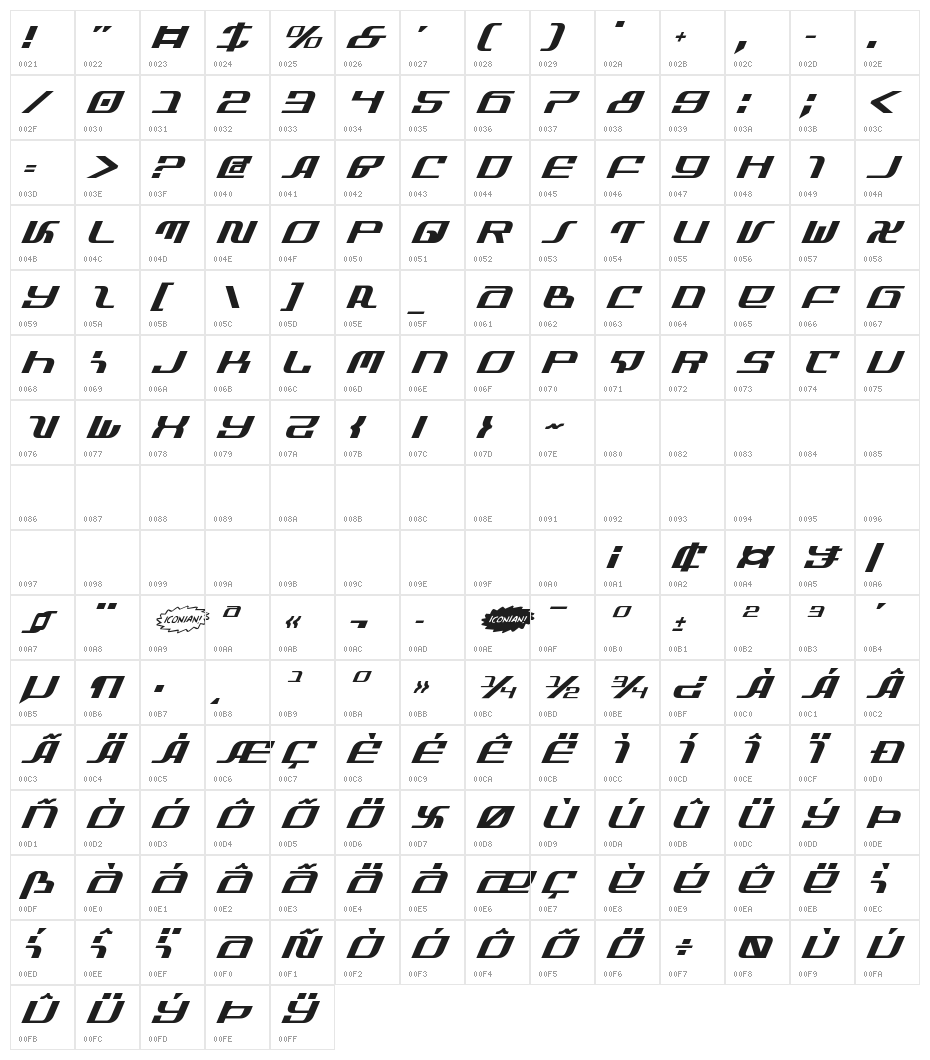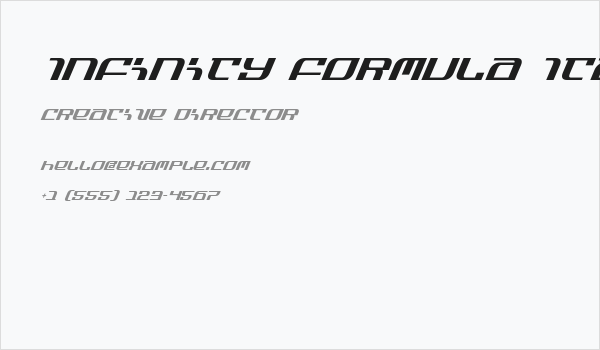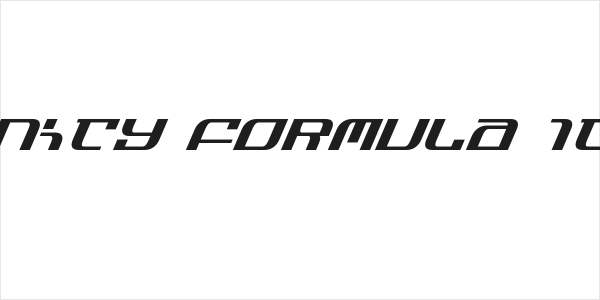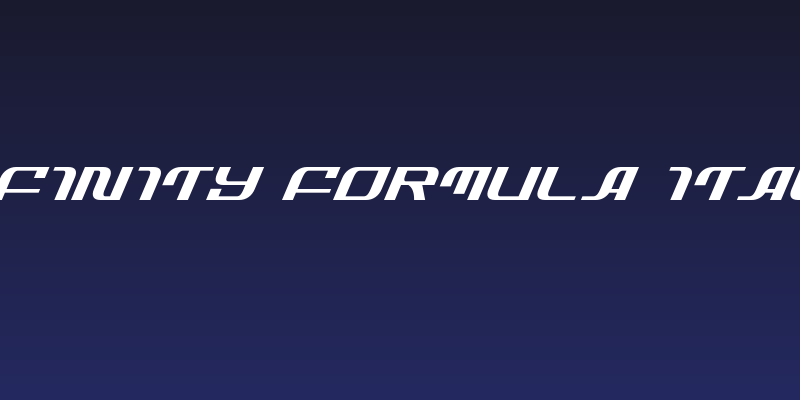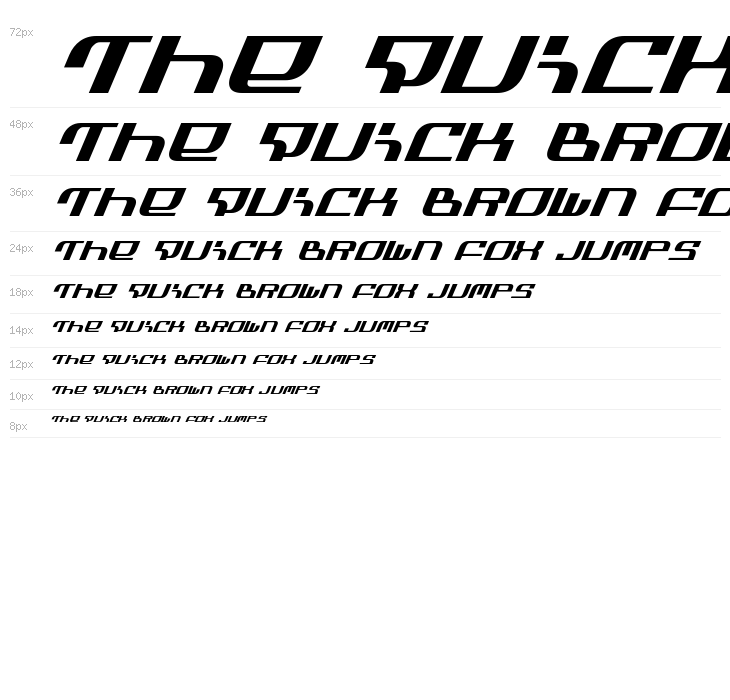
Infinity Formula Italic Font
Infinity Formula Italic Description
This font features a futuristic and dynamic design, characterized by its italicized and angular letterforms. The strokes are bold and consistent, giving it a strong presence. The characters have a distinct slant, enhancing the sense of motion and speed. The geometric shapes and sharp edges contribute to its modern and sleek appearance. The numerals and special characters maintain the same stylistic elements, ensuring uniformity across all glyphs. This font is ideal for projects that require a contemporary and energetic look.
| Proposed Projects | Ideal for technology branding, sci-fi themed designs, video game titles, and automotive advertisements. |